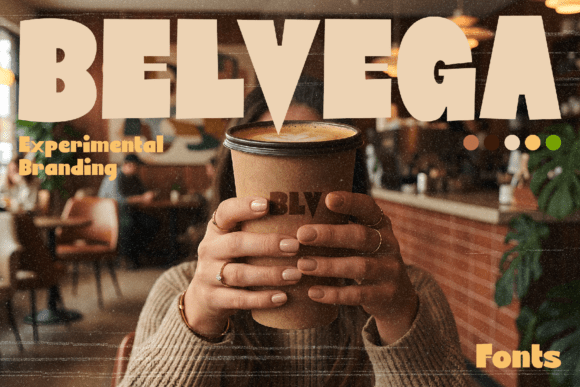
Breaking the Mold with Belvega Font
I still remember the design project that led me to discover Belvega Font. I was working on a branding project for a trendy cafe, and I needed a font that would make a statement. I wanted something bold, geometric, and unconventional. After hours of searching, I stumbled upon Belvega, and it was love at first sight. The dagger-like āVā and extreme weight of the font drew me in, and I knew I had found the perfect fit.
- ⨠**Unconventional letterforms**: Belvega’s unique design elements, such as the signature dagger-like āV,ā make it stand out from traditional fonts.
- ā **Extreme weight**: The font’s heavy weight makes it perfect for headlines, titles, and statements that demand attention.
- šÆ **Modernist-brutalist structure**: Belvega’s geometric design gives it a cutting-edge, avant-garde feel that’s perfect for modern brands.
- š¤ **Limited legibility**: Due to its extreme weight and unconventional design, Belvega may not be the best choice for body text or long paragraphs.
- ā ļø **Glyph limitations**: Some users may find that the font’s glyph set is limited, which could impact its versatility.
The Story Behind Belvega
Belvega was designed by a team of typographers who sought to push the boundaries of traditional font design. Inspired by the works of modernist architects and brutalist designers, they created a font that would challenge the eye and command attention. The result is a bold, geometric typeface that’s perfect for cutting-edge brands and designers who want to make a statement.
| What is Belvega font best used for? | Belvega is best used for headlines, titles, and statements that demand attention. It’s perfect for cutting-edge cafe branding, independent editorial mastheads, avant-garde fashion logos, and high-impact social media headers. |
| Is Belvega a versatile font? | While Belvega is a bold and attention-grabbing font, it may not be the most versatile font due to its extreme weight and unconventional design. However, it can be used in a variety of contexts, from digital media to print materials. |
| Can I use Belvega for body text? | Due to its extreme weight and limited legibility, Belvega is not recommended for body text or long paragraphs. It’s best used for headlines, titles, and short statements. |